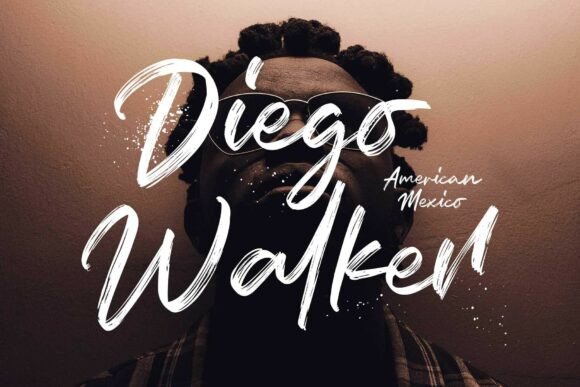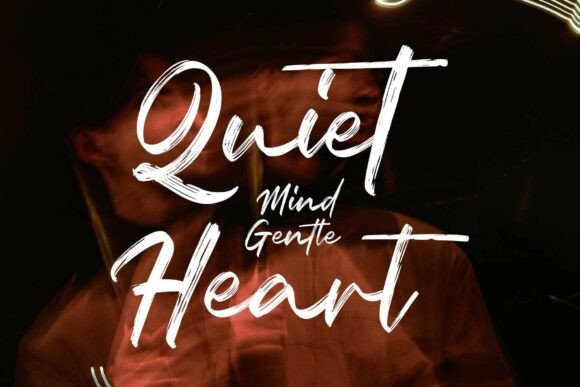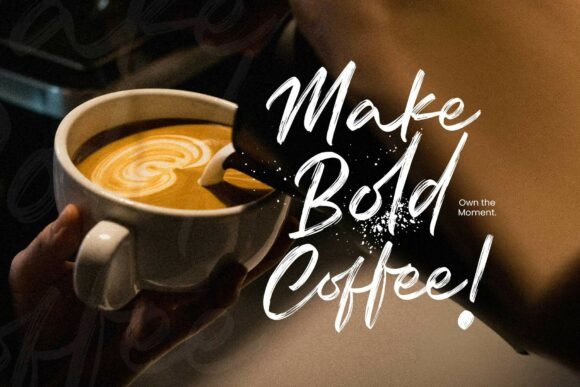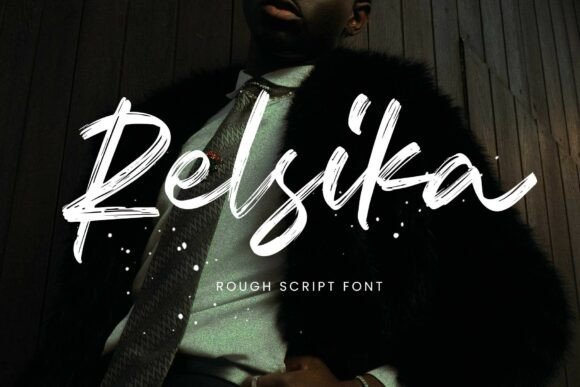
Introduction to Relsika Font
Relsika is a rough script font that celebrates imperfection with expressive, brush-textured strokes.
Inspired by natural handwriting, it feels organic, warm, and confidently humanβ€”giving your text a handcrafted personality without sacrificing readability This Relsika typeface captures the frantic, beautiful energy of street art and luxury fashion combined, featuring aggressive strokes and visible bristle marks.